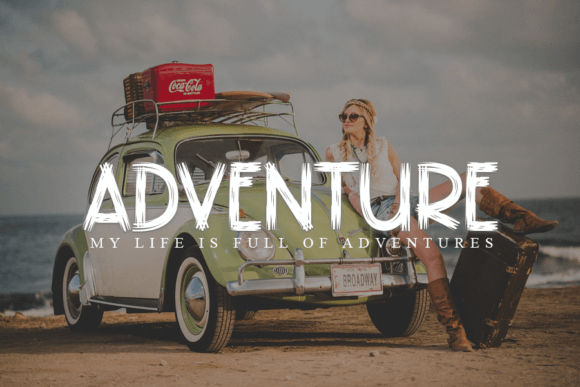
Are you in search of a signature email font that will set your message apart? Look no further than Adventure Font, the best font for signature email!
Created by PAYJHOshop, Adventure Font is a cool and modern handwritten display font that is perfect for adding a personal touch to your digital communications. This font is not just limited to email, however. Its versatility extends to crafts, digital design, presentations, and even greeting cards!
Adventure Font boasts a unique and eye-catching style that is sure to impress. Its handwritten look adds a personal touch that will make your message stand out from the crowd.
But Adventure Font isn't just visually stunning. It is also incredibly easy to use. With its smooth lines and flowing curves, this font is a joy to work with, whether you're a seasoned designer or a beginner just starting out.
What's more, Adventure Font is highly adaptable, making it perfect for a wide range of projects. Its display font family means that it works best for headlines, logos, and other eye-catching text, making it a great choice for branding or marketing materials.